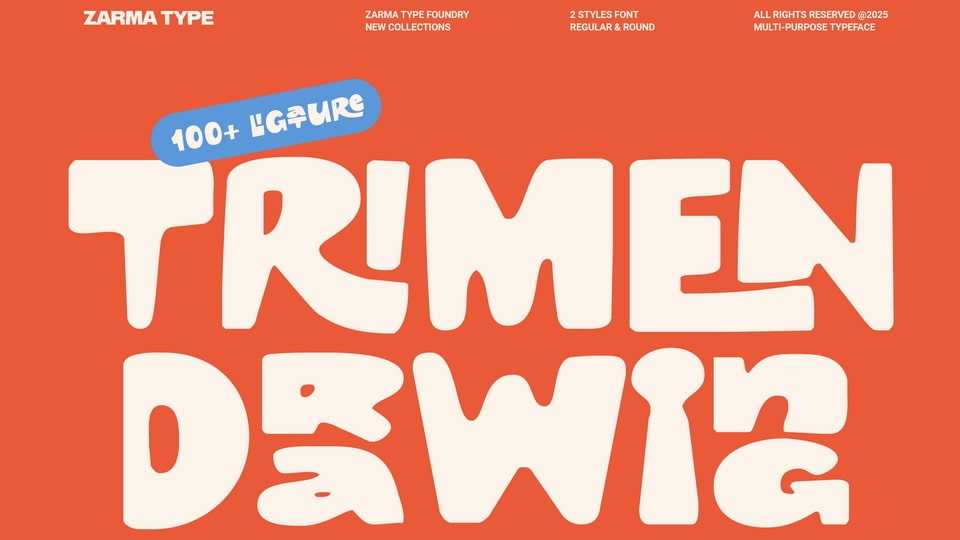
Download Trimen Drawing font, a modern bold typeface full of personality, perfect for designs that need to be fun, raw, and eye-catching. It features thick han-ddrawn strokes with playful curves that create a unique, expressive style
Designer: Zarma Type Foundry